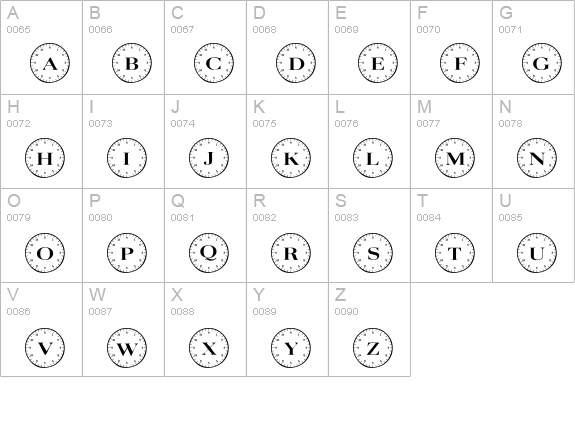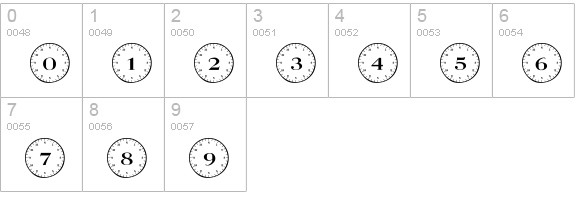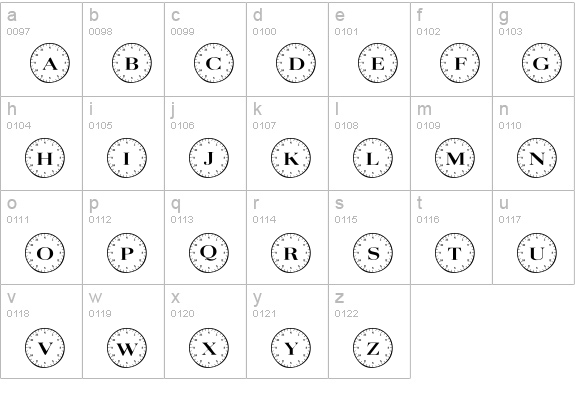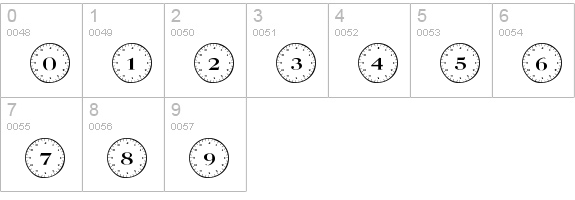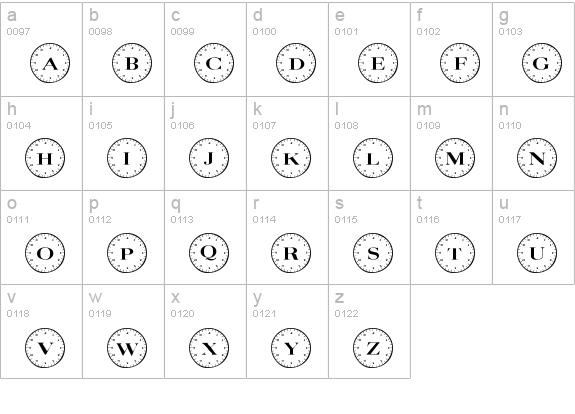
Introducing the stunning 101! Compass font, a versatile and elegant typeface that will guide your design projects in the right direction. With its sleek lines and modern appeal, this font is perfect for adding a touch of sophistication to any creative endeavor. What sets the 101! Compass font apart is not just its striking appearance, but also the fact that it is completely free for personal and commercial use. This means that you can elevate your branding, advertising, and design projects without any restrictions or limitations. To get your hands on this exceptional font, simply head over to FontsMarket.com where you can download it for free. Don't miss out on the opportunity to enhance your designs with the timeless beauty of the 101! Compass font.